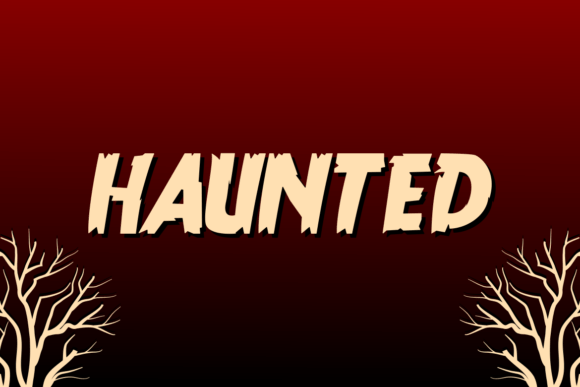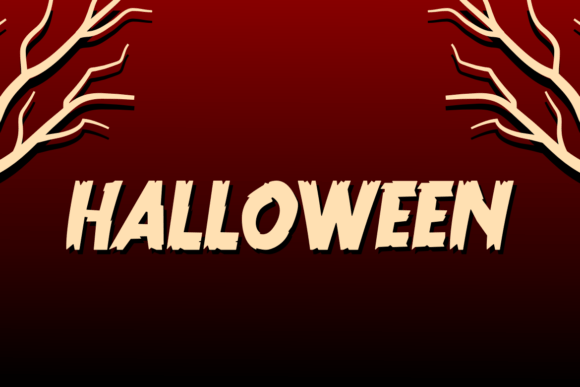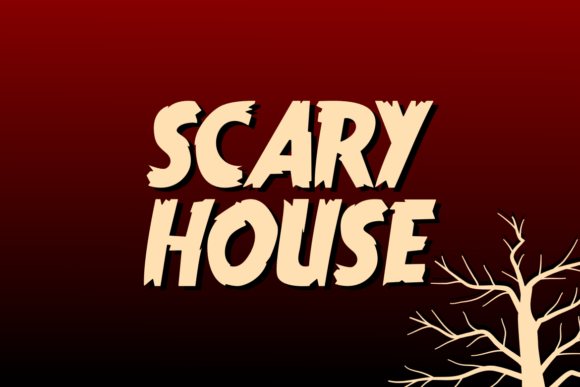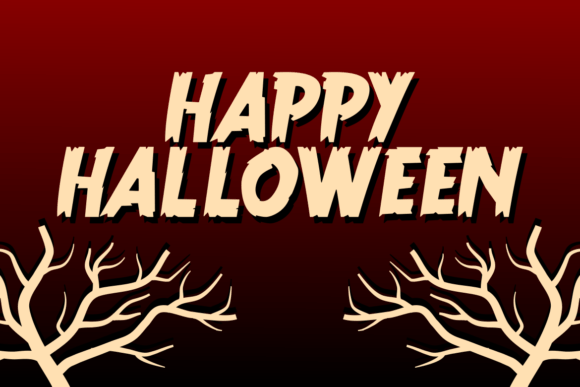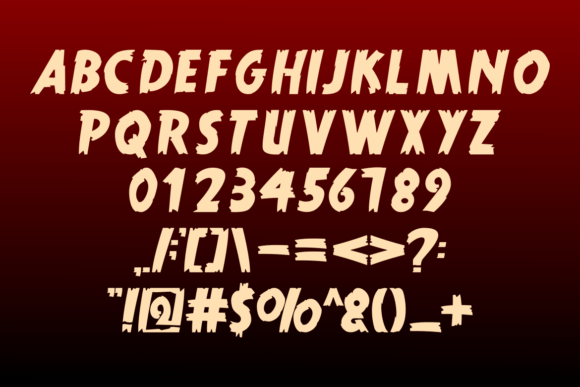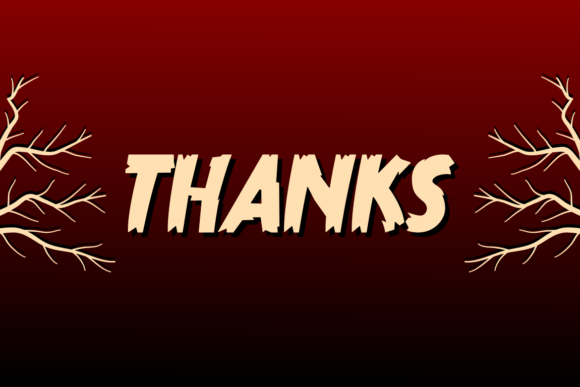
Introduction to Moons Scary Font
Moons Scary is a fun and spooky display font.
Whimsical and a little mysterious, this font is perfect for all your Halloween-related designs .